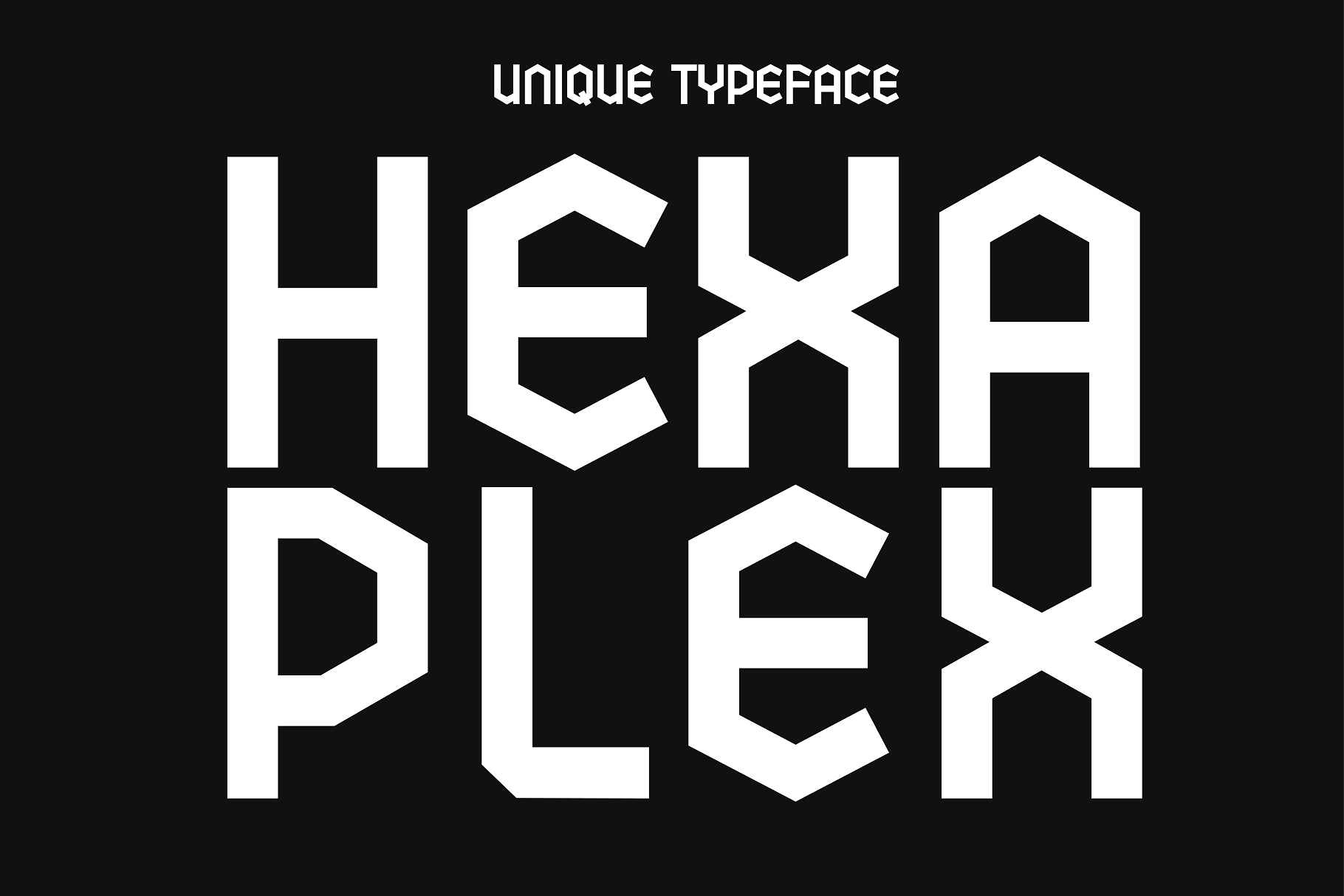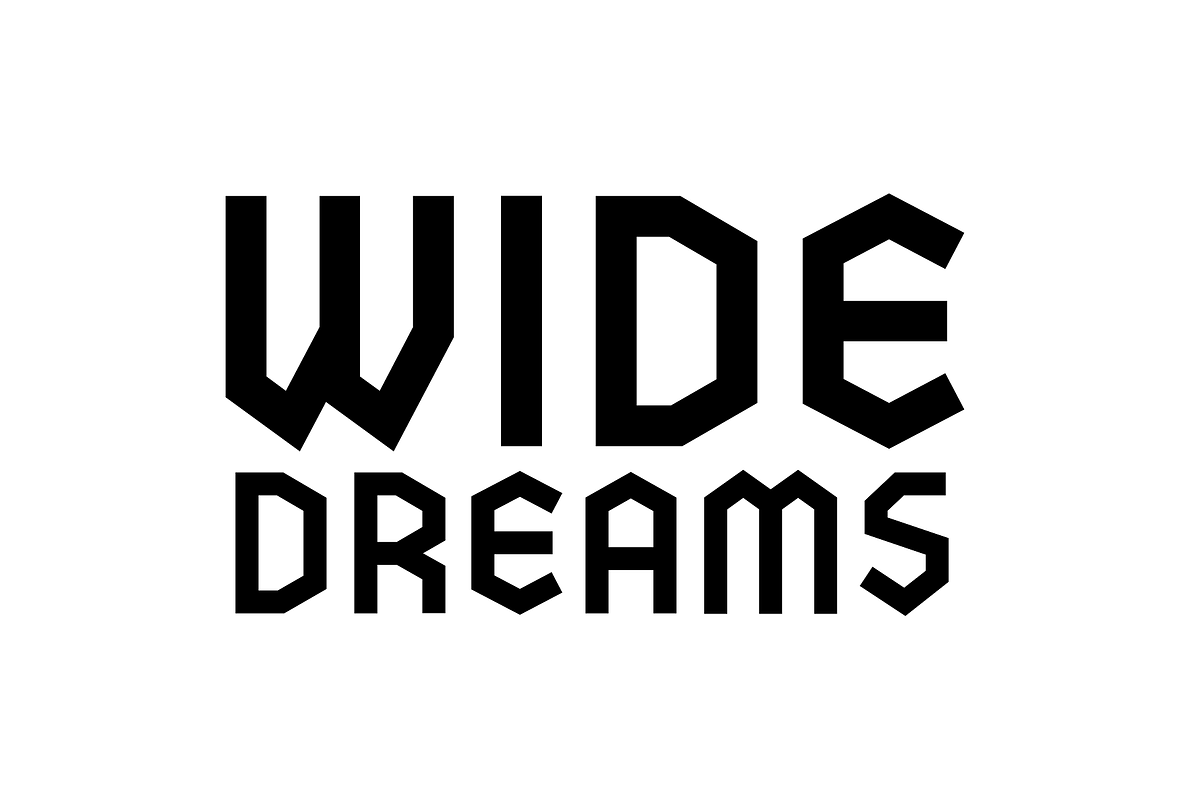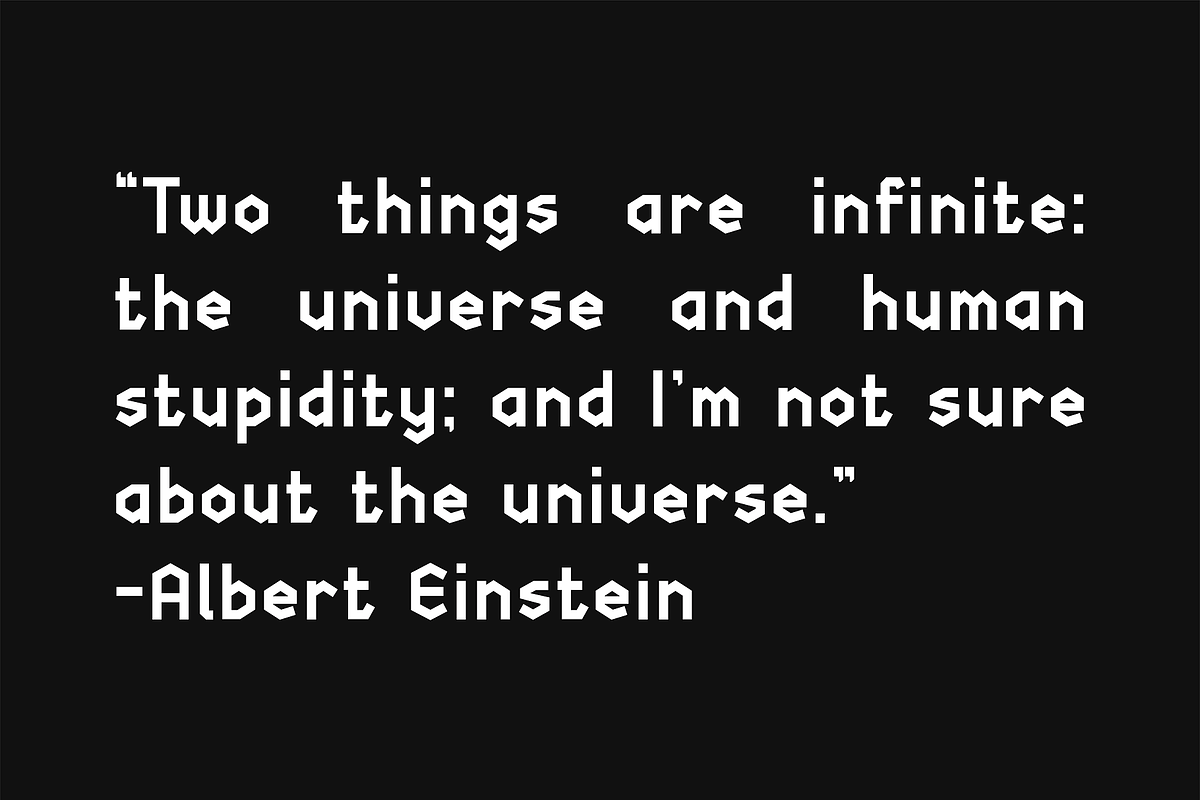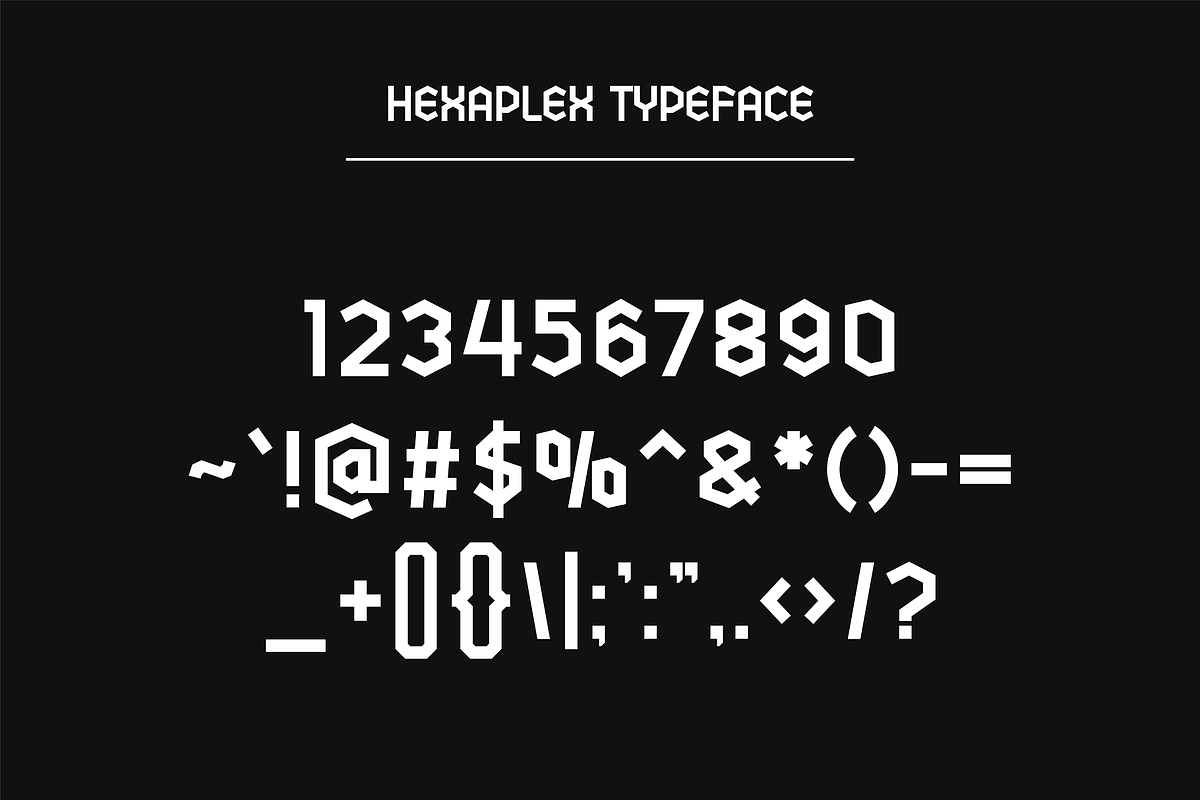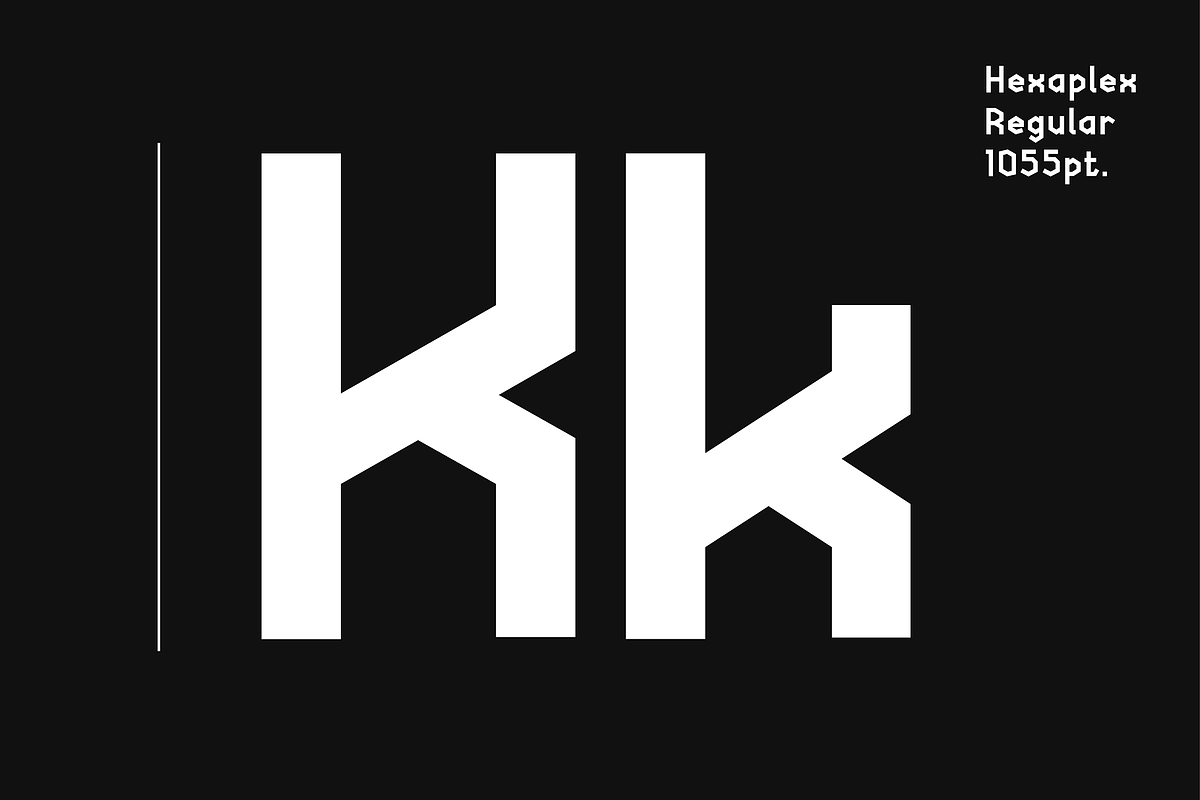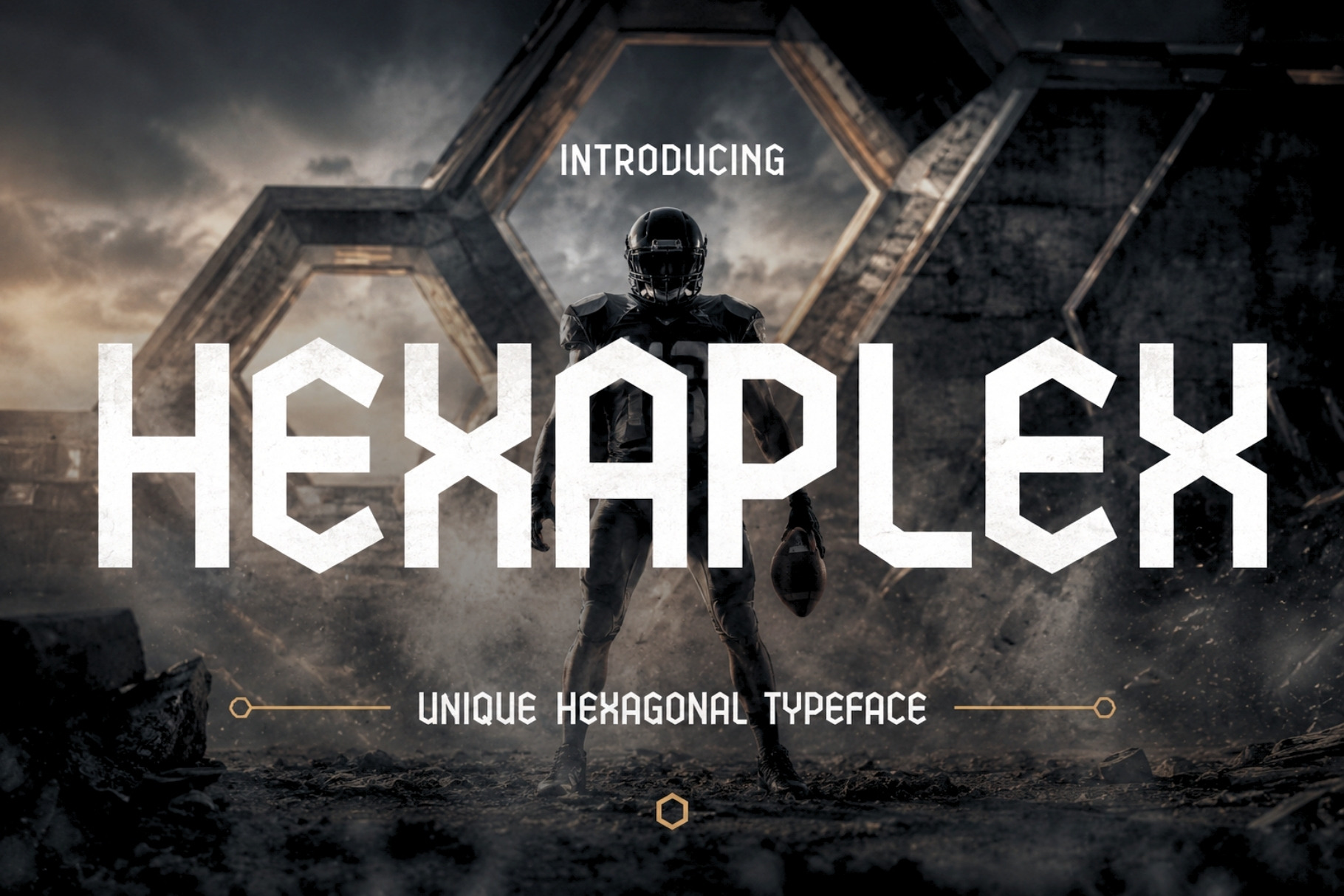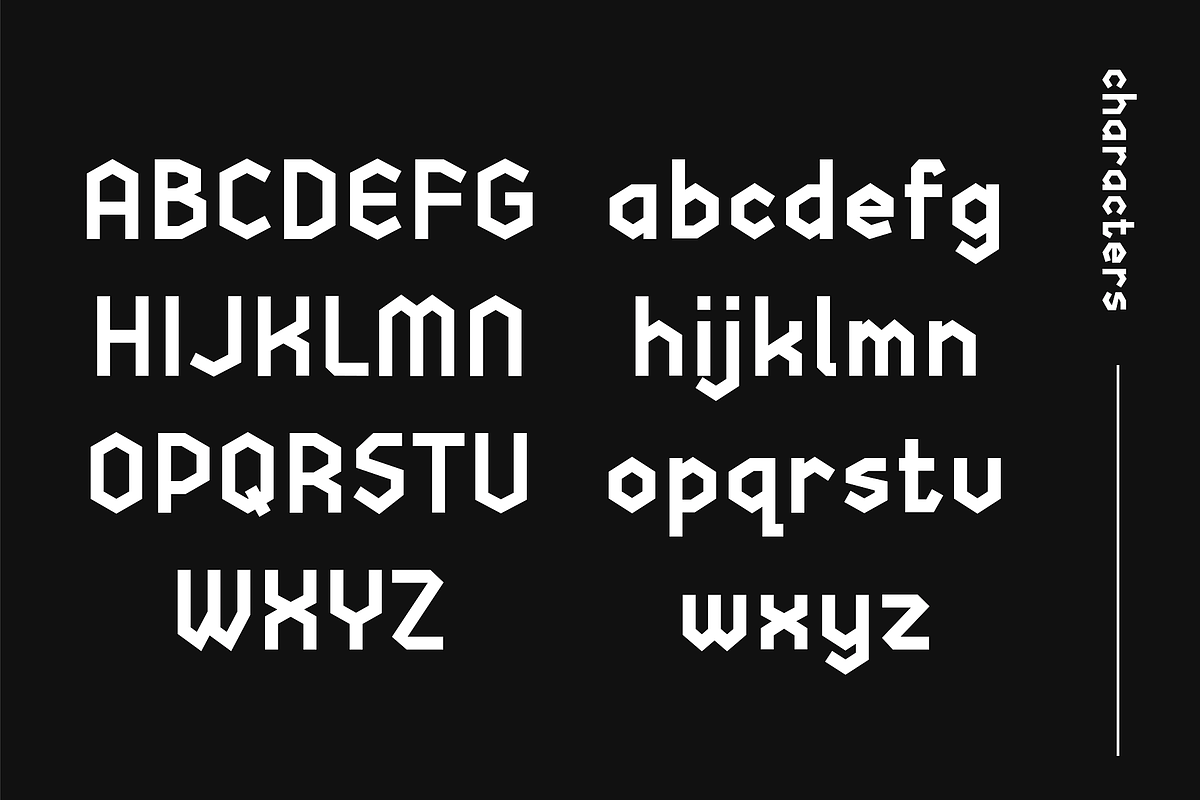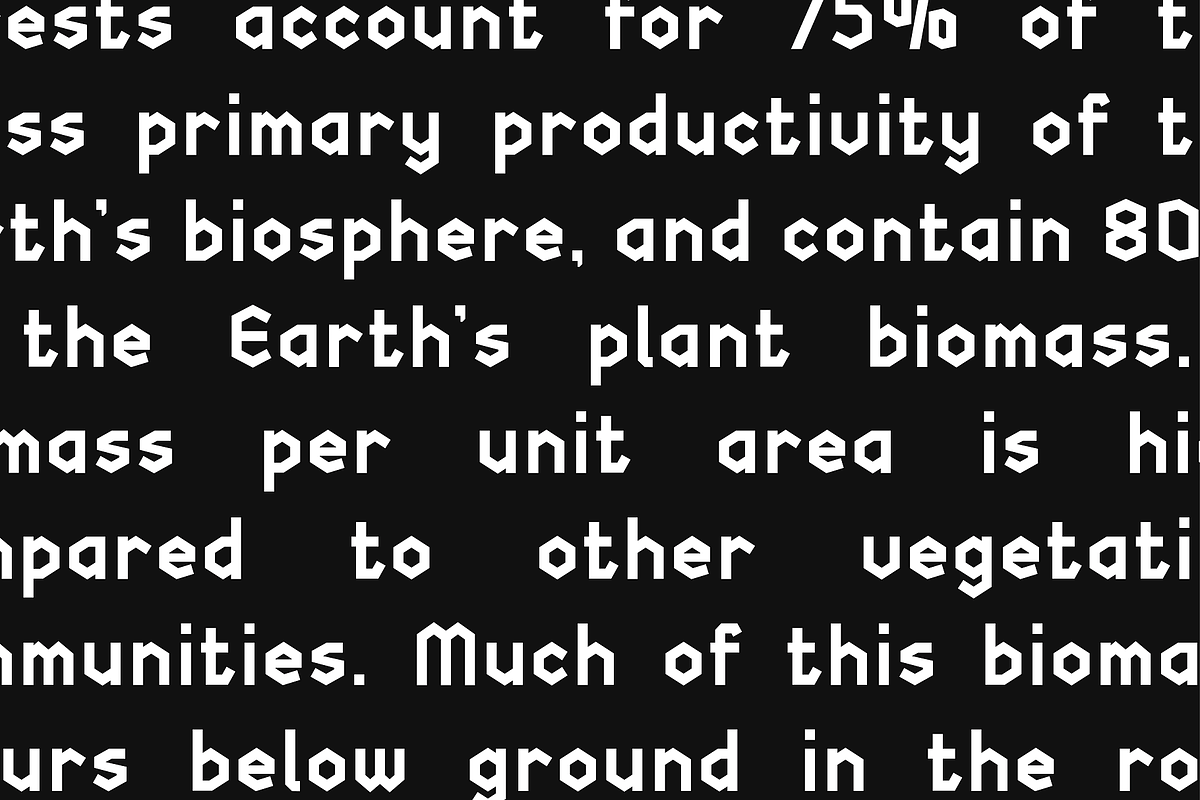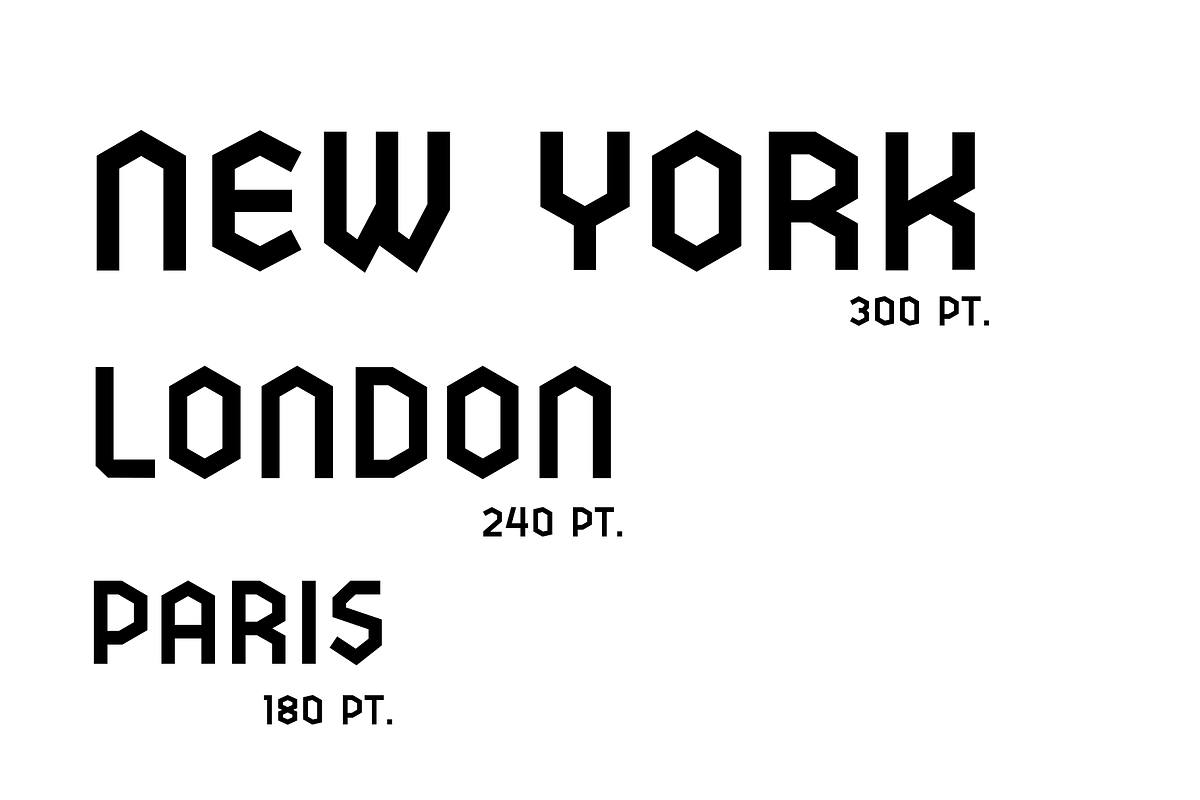
Hexaplex - Geometric Typeface
Hexaplex is a geometric and modern font that takes inspiration from the world of architecture and construction. The font is named after its six-sided shapes, which give it a hexagonal motif that is both distinctive and visually engaging.
Hexaplex is designed to be versatile, making it an excellent choice for a range of abstract or experimental projects, from logos and branding to headlines and captions. Whether used on its own or paired with other fonts, Hexaplex is a unique and powerful choice for any design project that requires a modern and sophisticated touch.